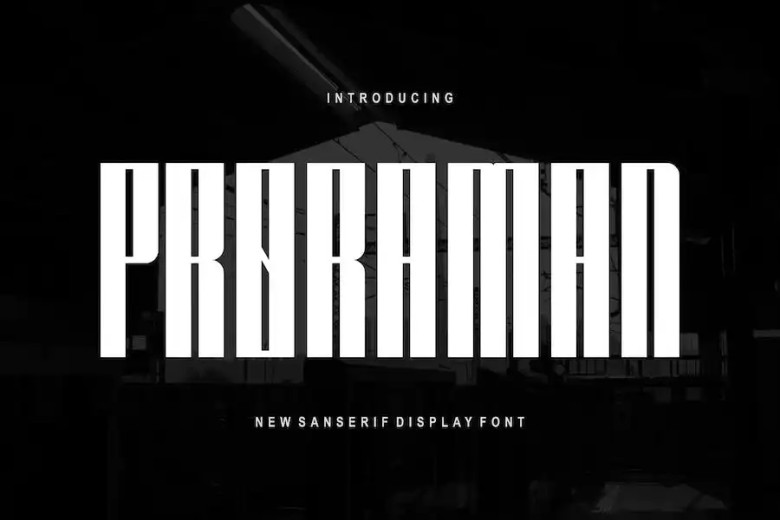
Proraman Font
Proraman Font Modern Font can be described as an eye-catching genuine display type font, suitable for branding projects like logos, T-shirt, printing Esports tournaments and more. Proraman stands out in any situation and delivers excellence.
Proraman Sans Serif Display Font